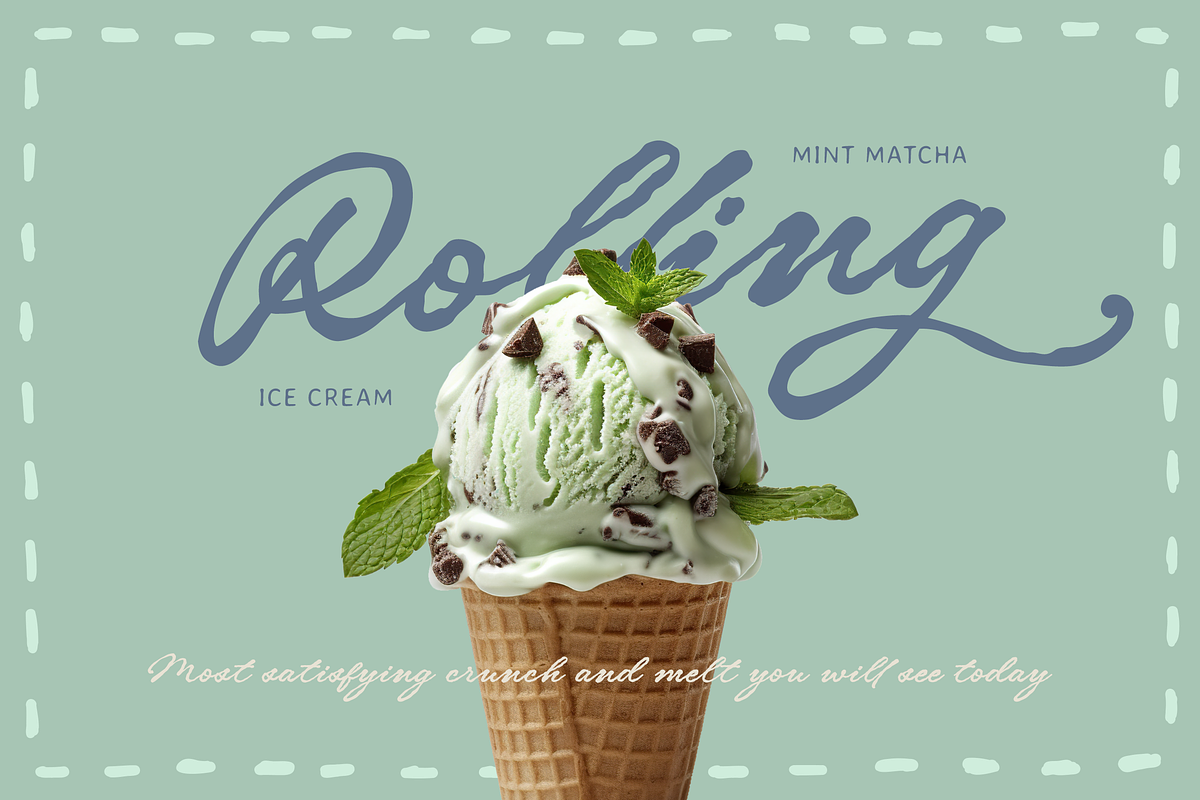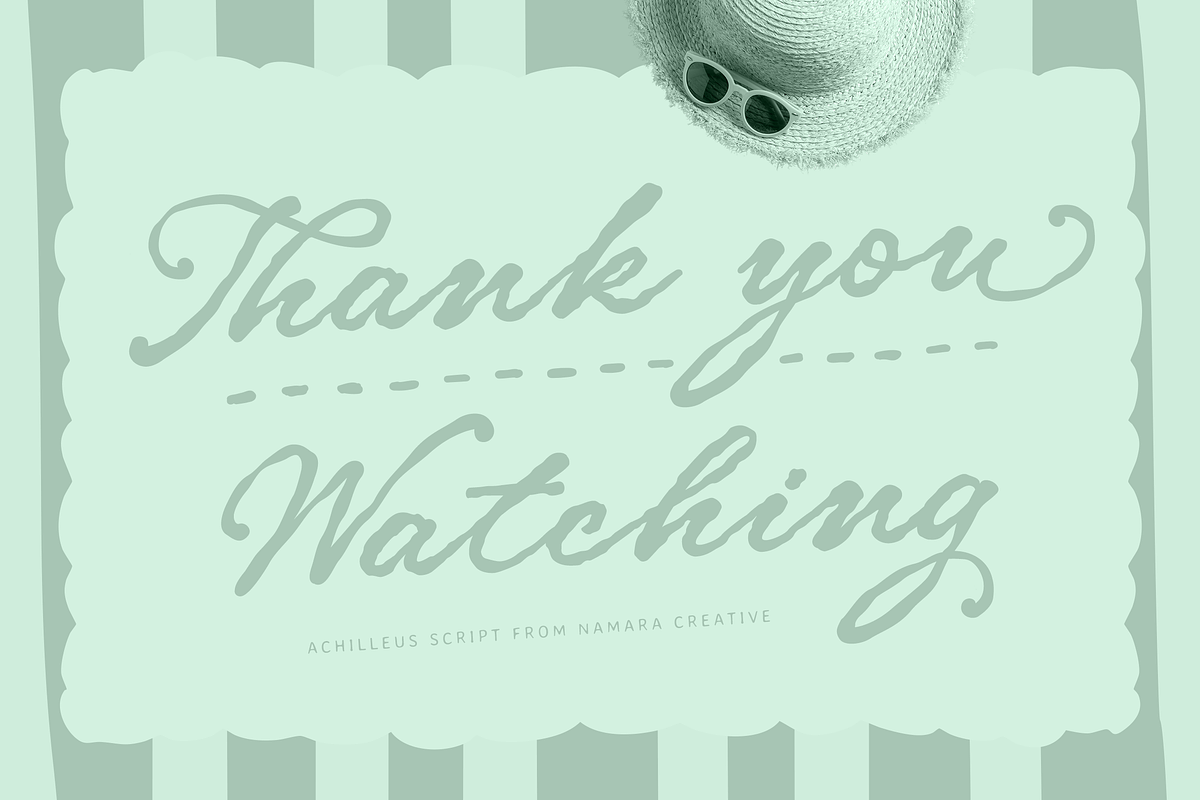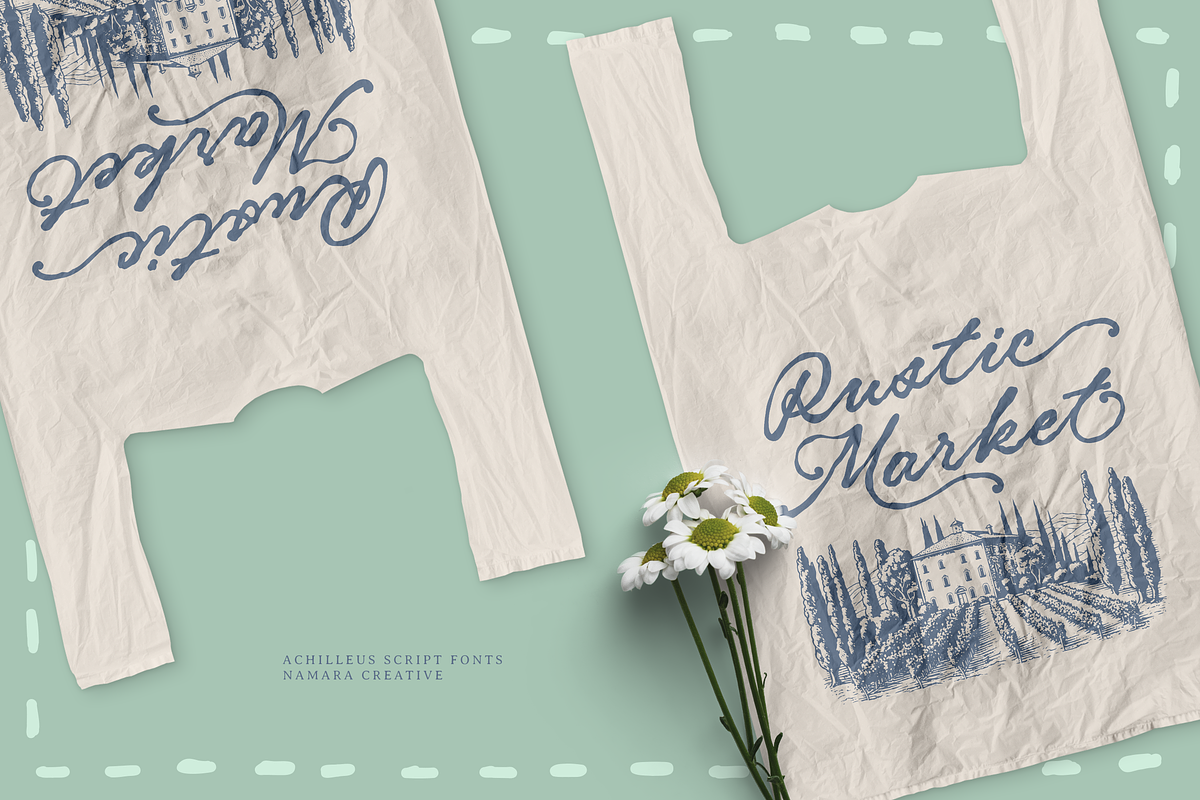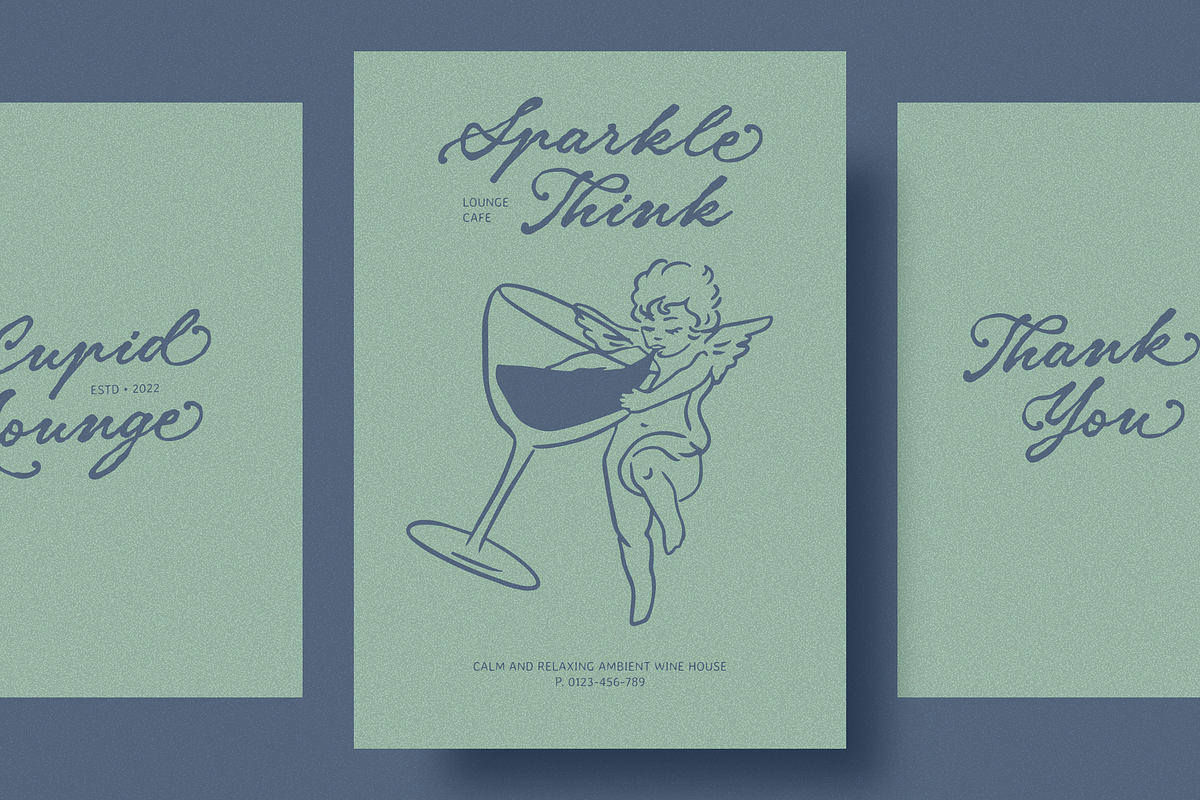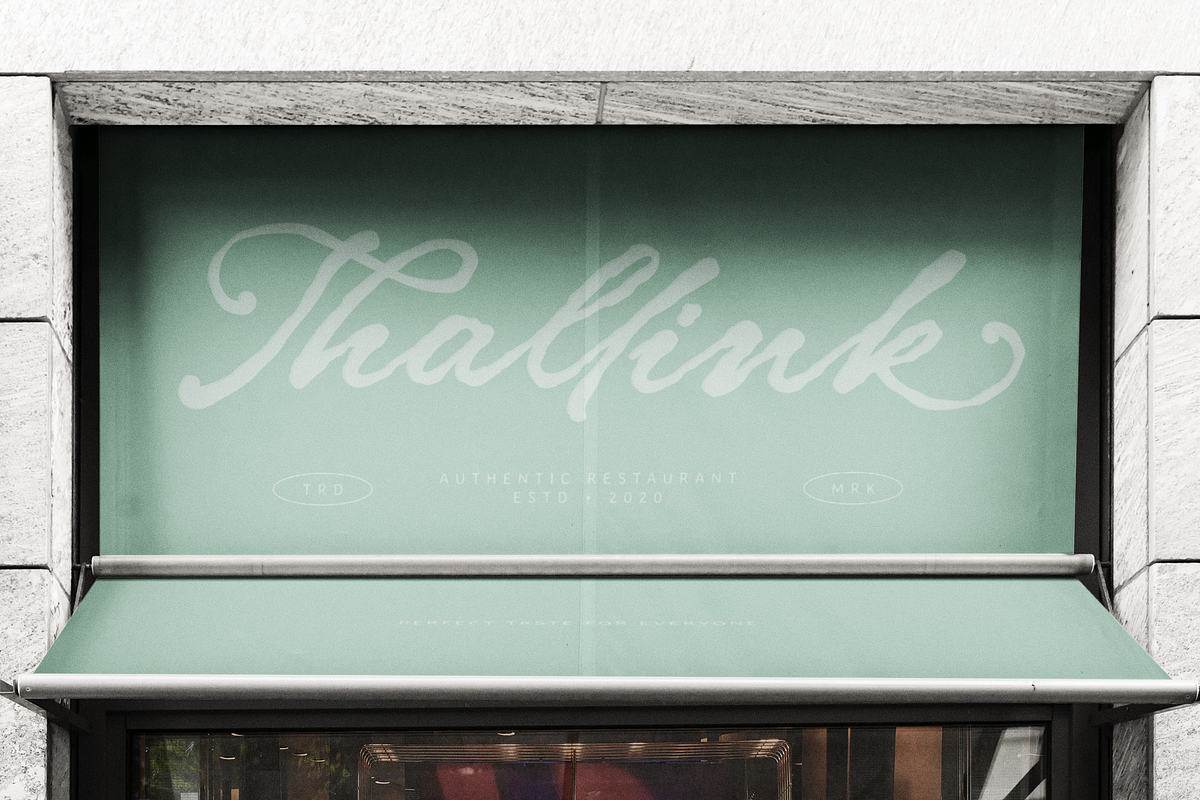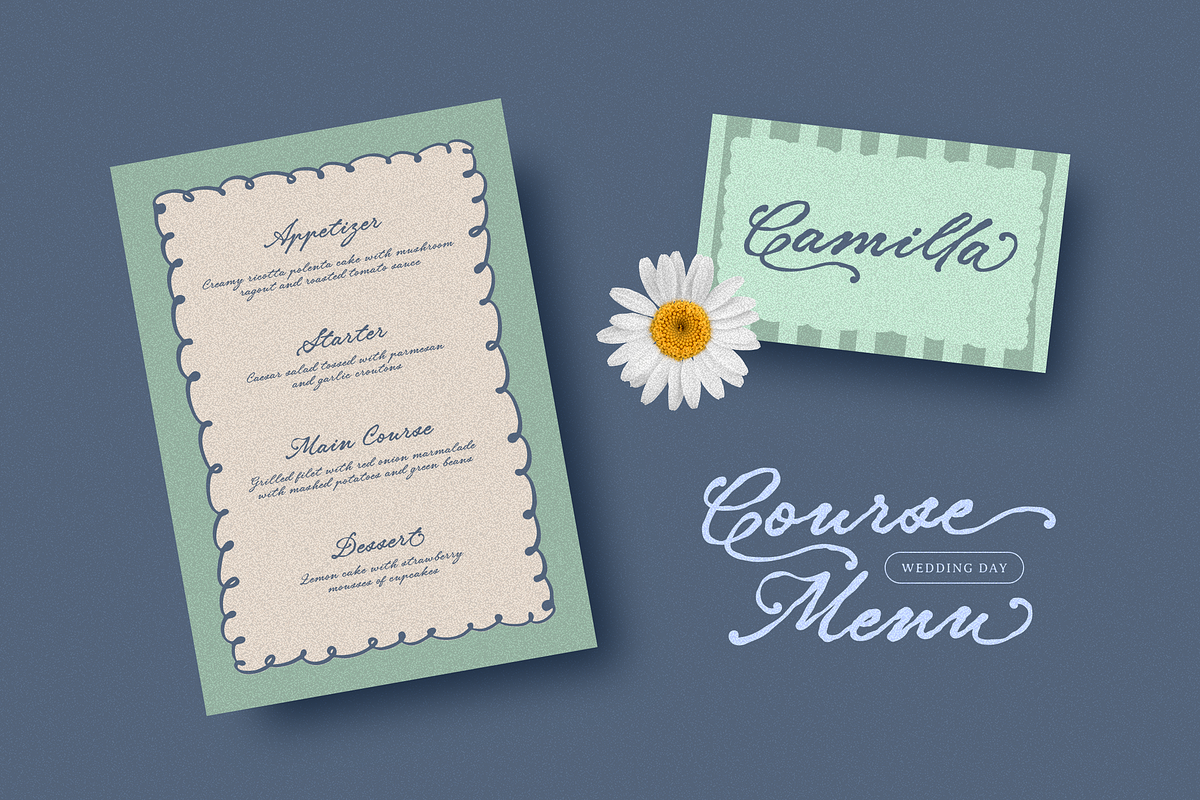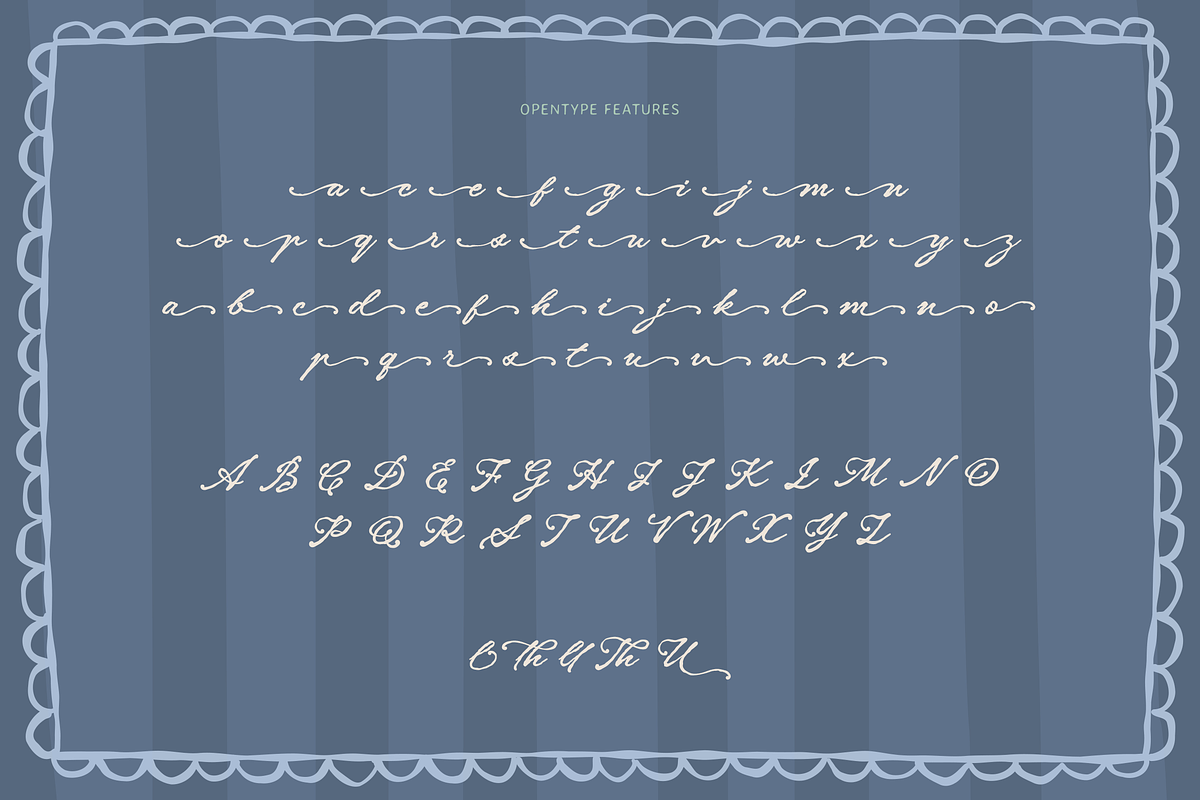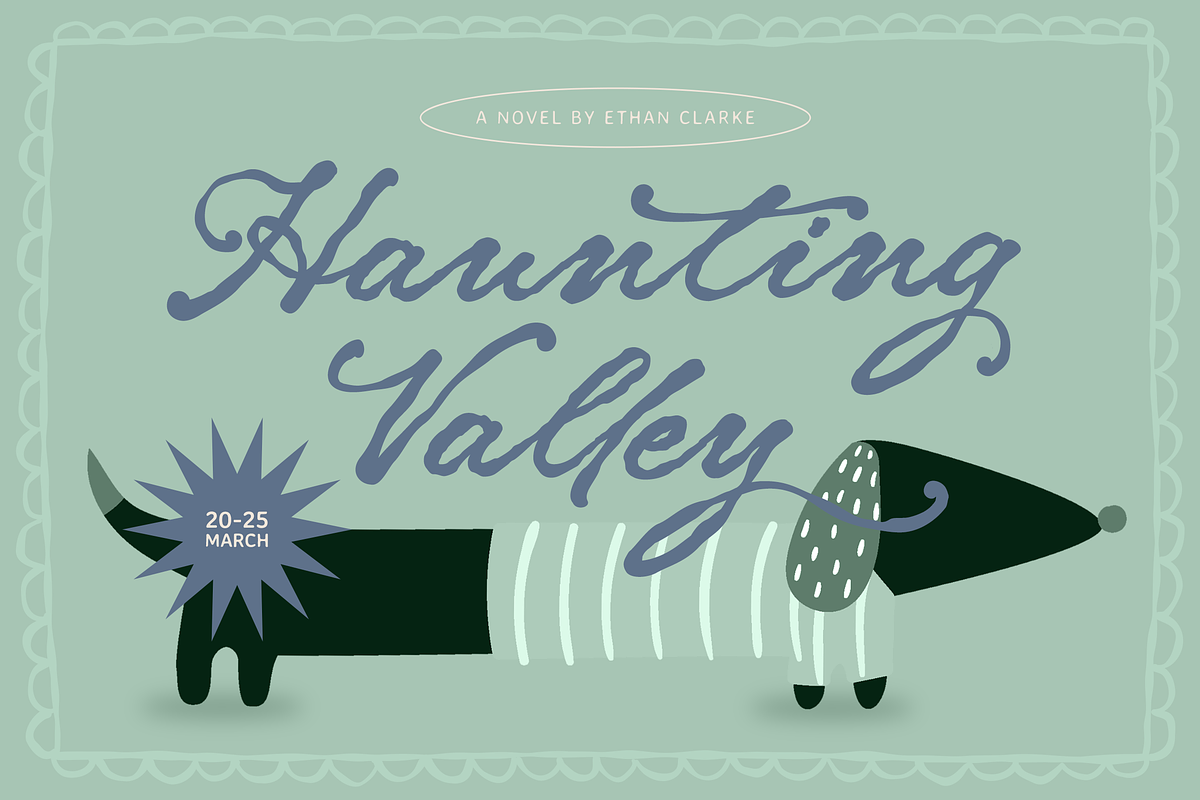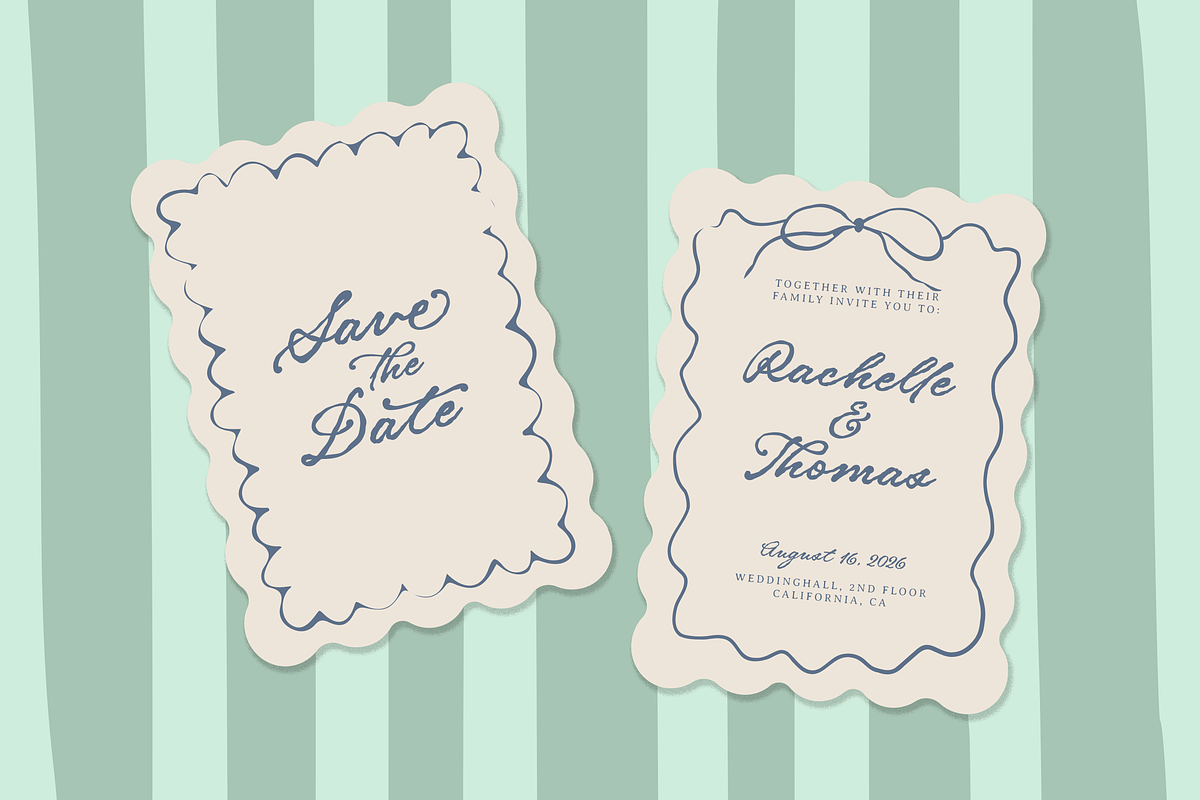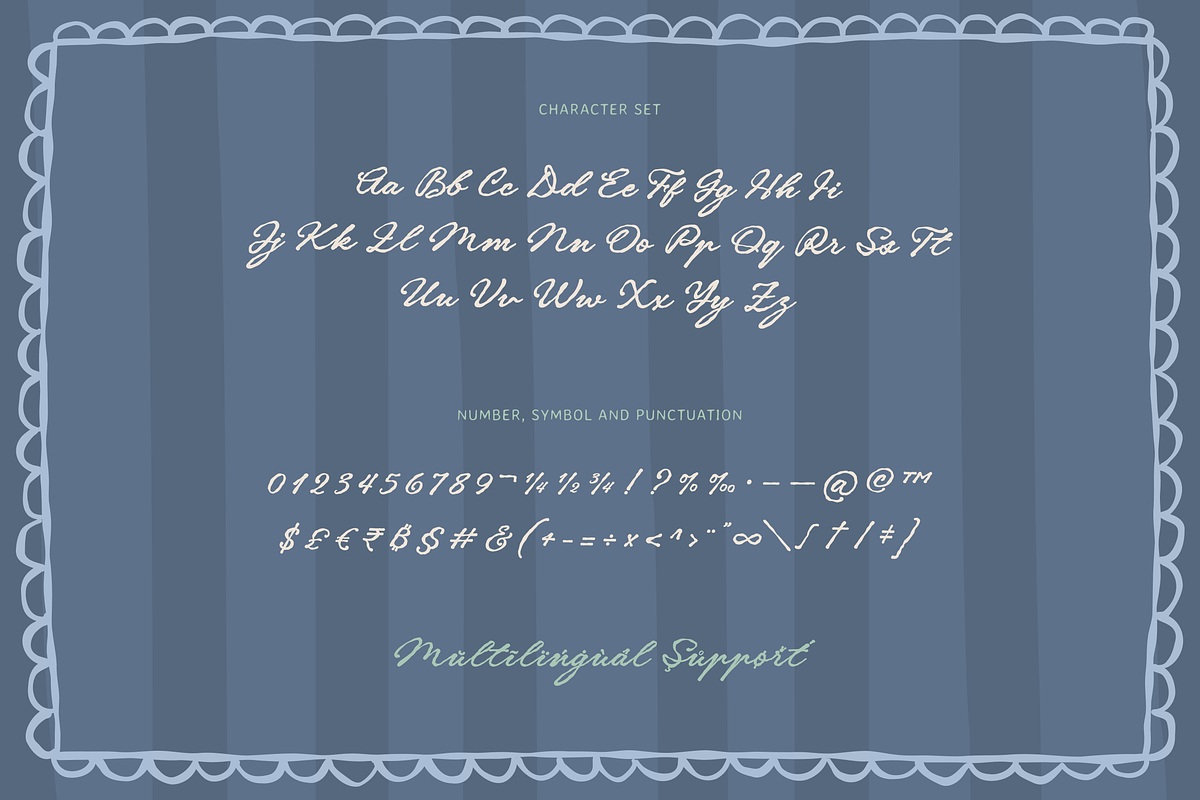
Achilleus Whimsical Script
Meet Achilleus Script — a dreamy, whimsical handwritten script font that brings warmth, personality, and effortless elegance to every design it touches. Crafted by Namara Creative, Achilleus Script captures the soul of vintage calligraphy with a contemporary, playful twist, bold ink strokes, expressive swooshes, and lively letterforms that feel genuinely hand-drawn.
Whether you’re designing a romantic wedding suite, a charming café brand, an editorial headline, or a bestselling book cover, Achilleus Script delivers the kind of authentic, human touch that no template can replicate. Its fluid connections and carefully drawn alternates make every word feel custom-lettered — because great type should feel personal.
Key Features :
Authentic Handwritten Style : Bold, flowing strokes inspired by vintage calligraphy with a modern, whimsical character.
Full Character Set : Complete A–Z uppercase & lowercase, numbers 0–9, punctuation, and currency symbols included.
OpenType Alternates & Ligatures : Stylistic alternates and contextual ligatures for unique, varied letterforms in every layout.
Multilingual Support : Extended language coverage for international design projects across multiple markets.